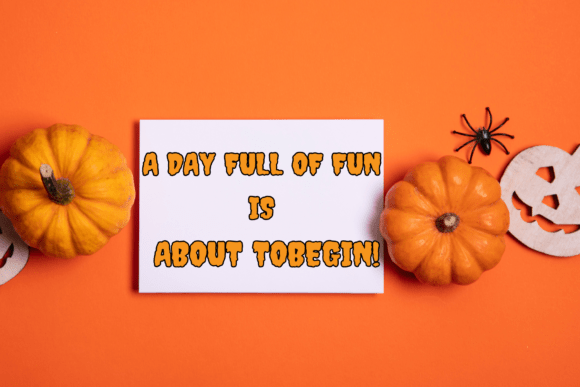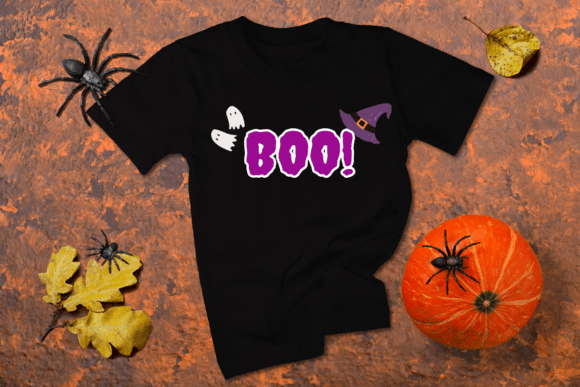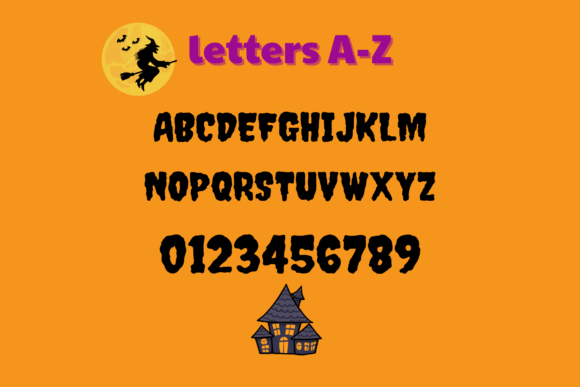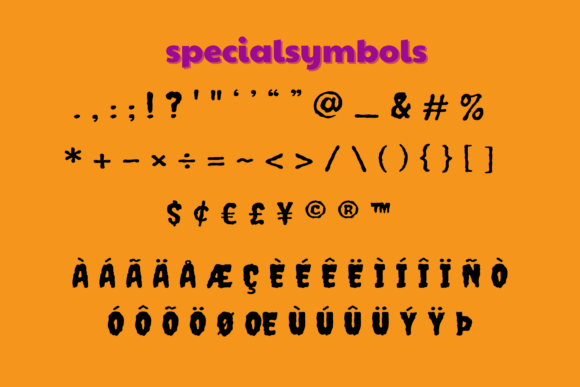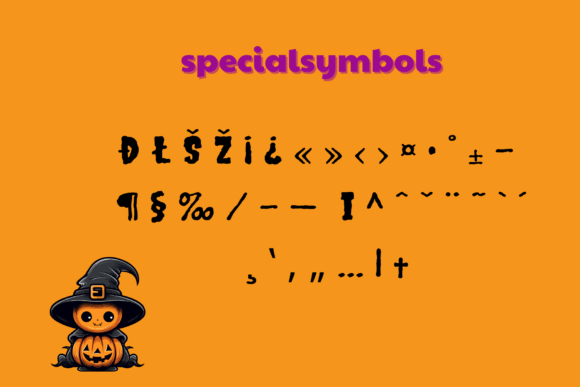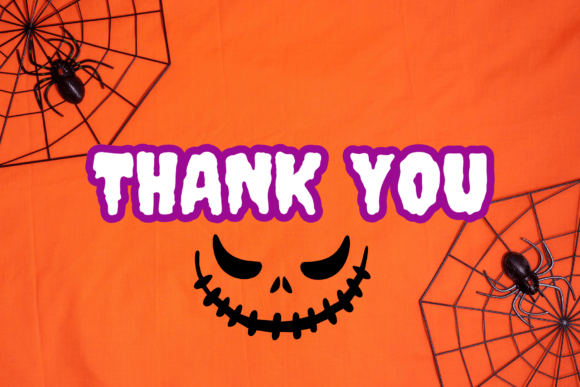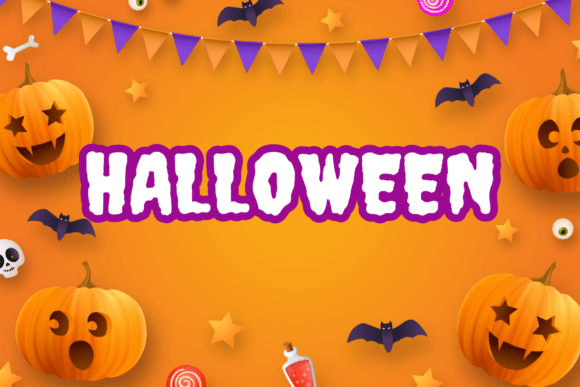
Unleash the Spook: Elevate Your Halloween Designs with the Perfect Halloween Font
Halloween is just around the corner, and with it comes the excitement of creating spook-tacular designs for various applications. Whether you’re a designer, crafter, or DIY enthusiast, having the right font can make all the difference in capturing the essence of this eerie and fascinating holiday. That’s where the Halloween Font comes in – a captivating and spooky display font designed to perfectly encapsulate the spirit of Halloween.
What Makes the Halloween Font So Special?
The Halloween Font is an ideal choice for creating chilling and eye-catching designs for Halloween-themed posters, apparel, embroidery, crafts, and other festive applications. Its unique and quirky style is sure to grab attention and evoke the spooky atmosphere that’s synonymous with Halloween. The font’s design is carefully crafted to convey the thrill and excitement of the holiday, making it a must-have for anyone looking to create authentic and engaging Halloween-themed designs.
Key Features of the Halloween Font
- Spine-Chilling Style: The Halloween Font boasts a distinctive and eerie style that’s perfect for creating designs that will send shivers down the spine.
- Versatile Use: This display font is suitable for a wide range of applications, including Halloween-themed posters, apparel, embroidery, crafts, and more.
- High-Quality Design: The font is carefully crafted with attention to detail, ensuring a high-quality design that’s perfect for professional and personal use.
Tips for Getting the Most Out of the Halloween Font
To get the most out of the Halloween Font, here are some tips to keep in mind:
- Experiment with Different Sizes: The Halloween Font looks great in large and small sizes, so don’t be afraid to experiment with different sizes to create visual interest.
- Combine with Other Fonts: Try pairing the Halloween Font with other fonts to create a unique and eye-catching design.
- Use in Combination with Images: The Halloween Font looks great when used in combination with spooky images, such as pumpkins, ghosts, or bats.